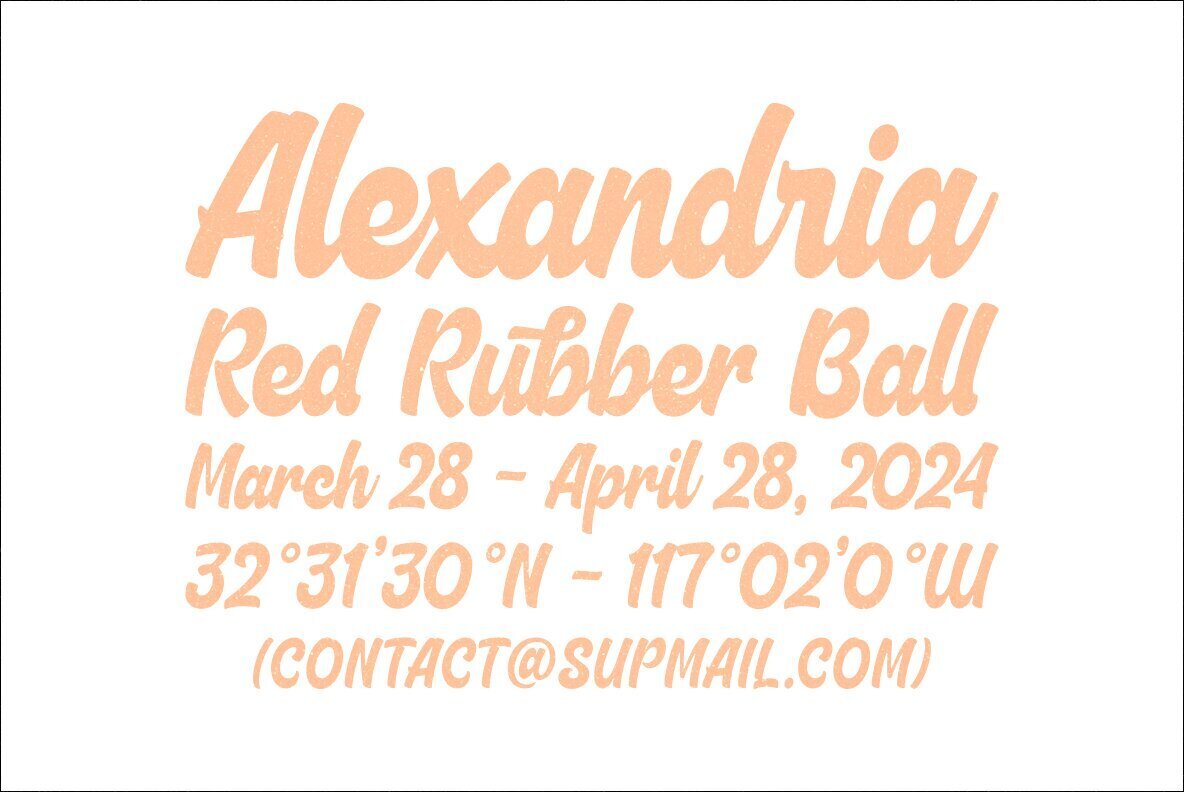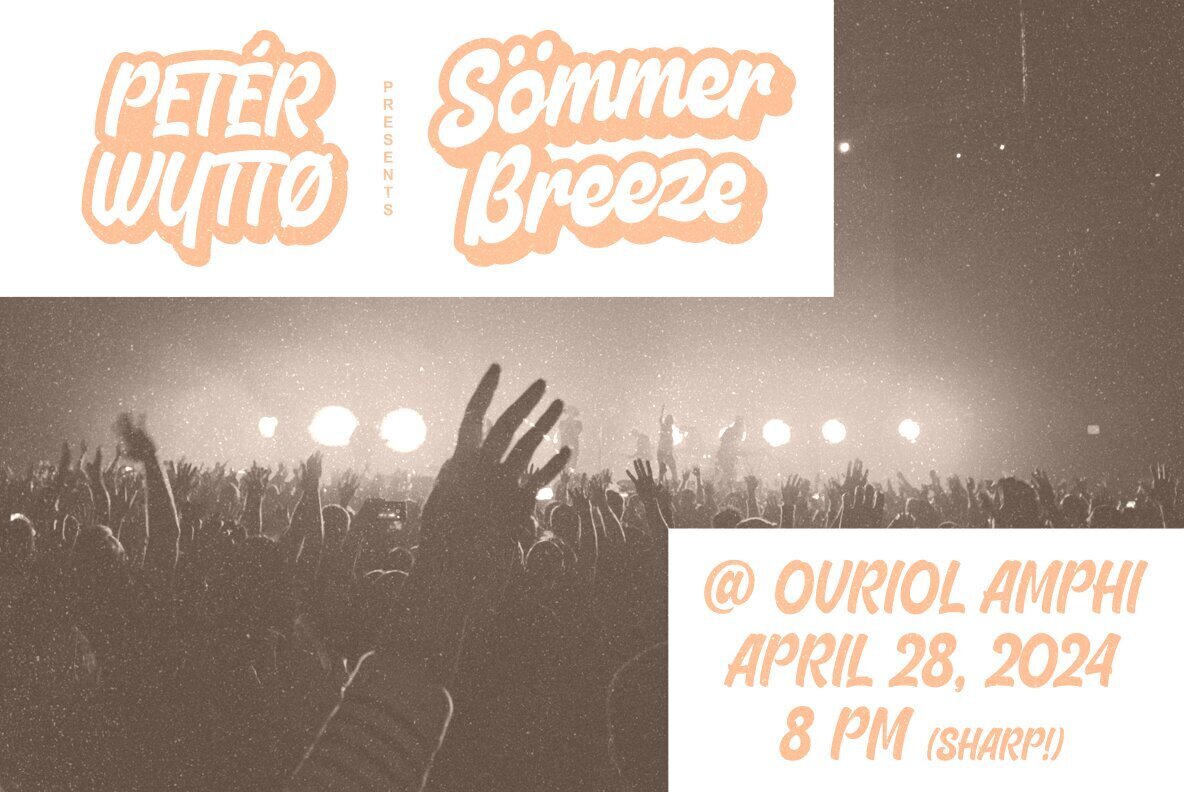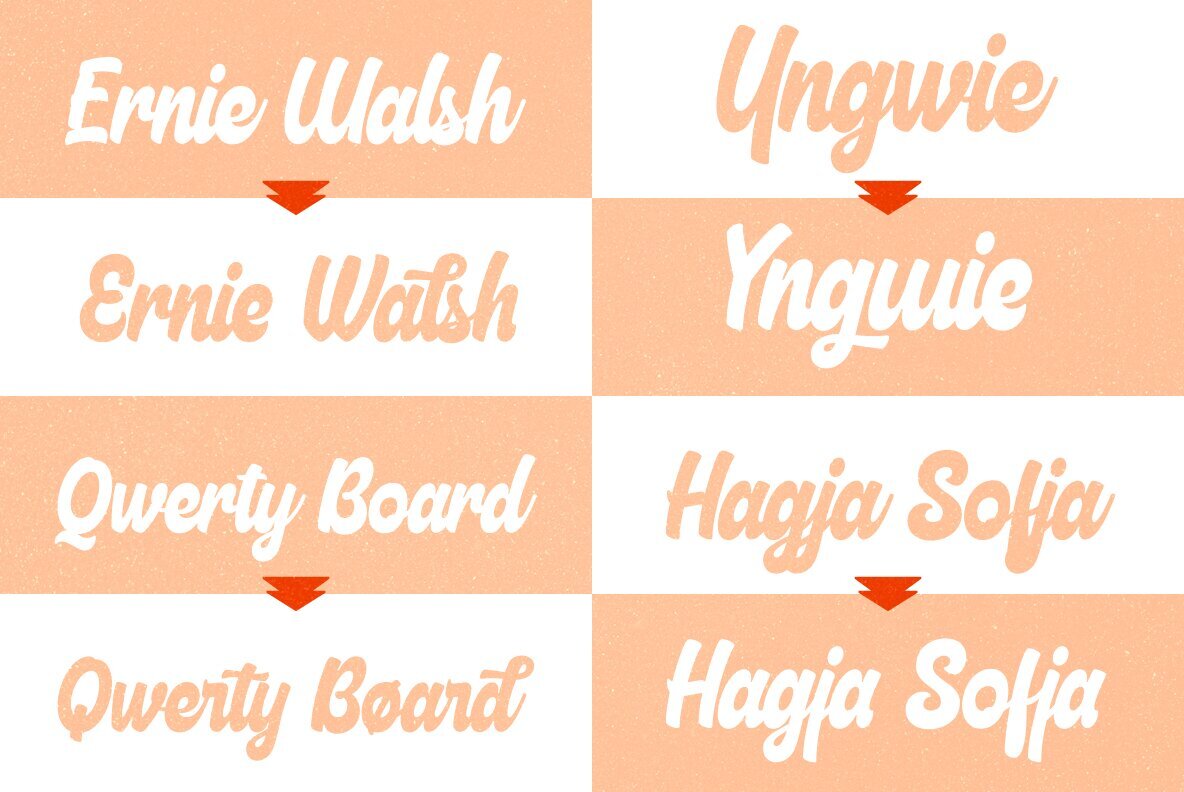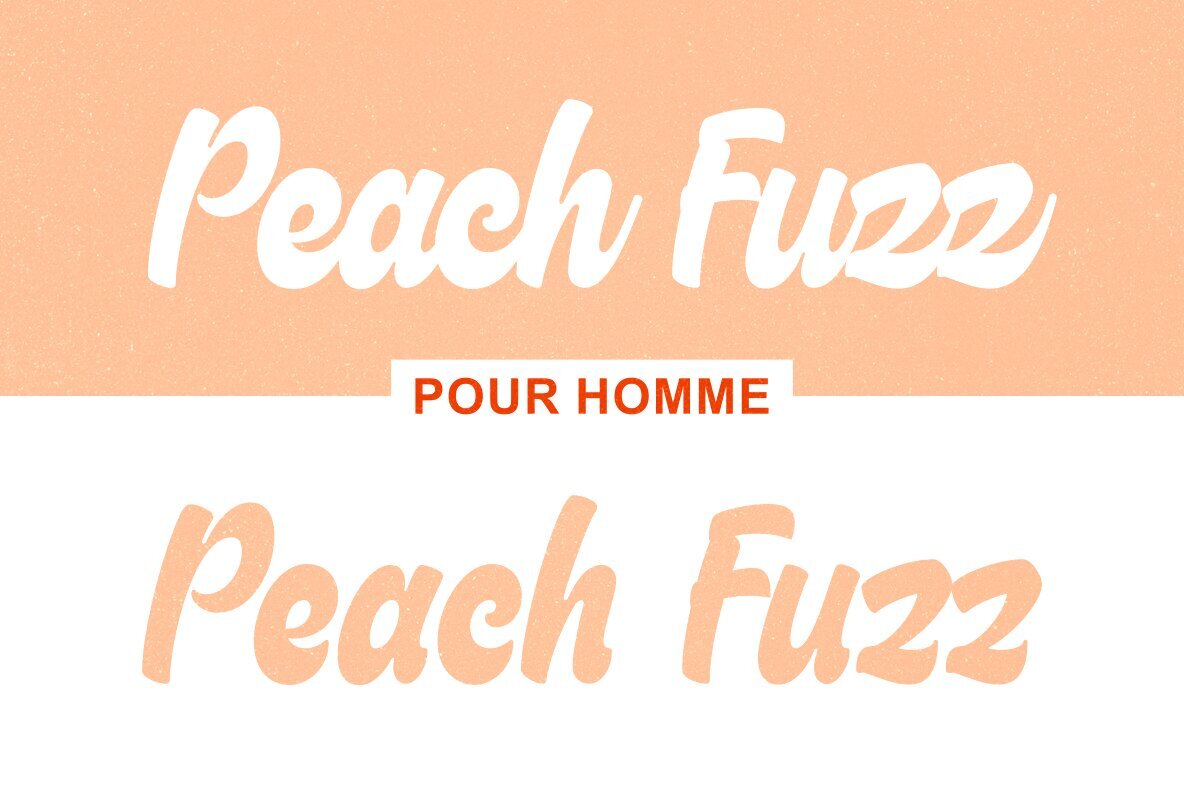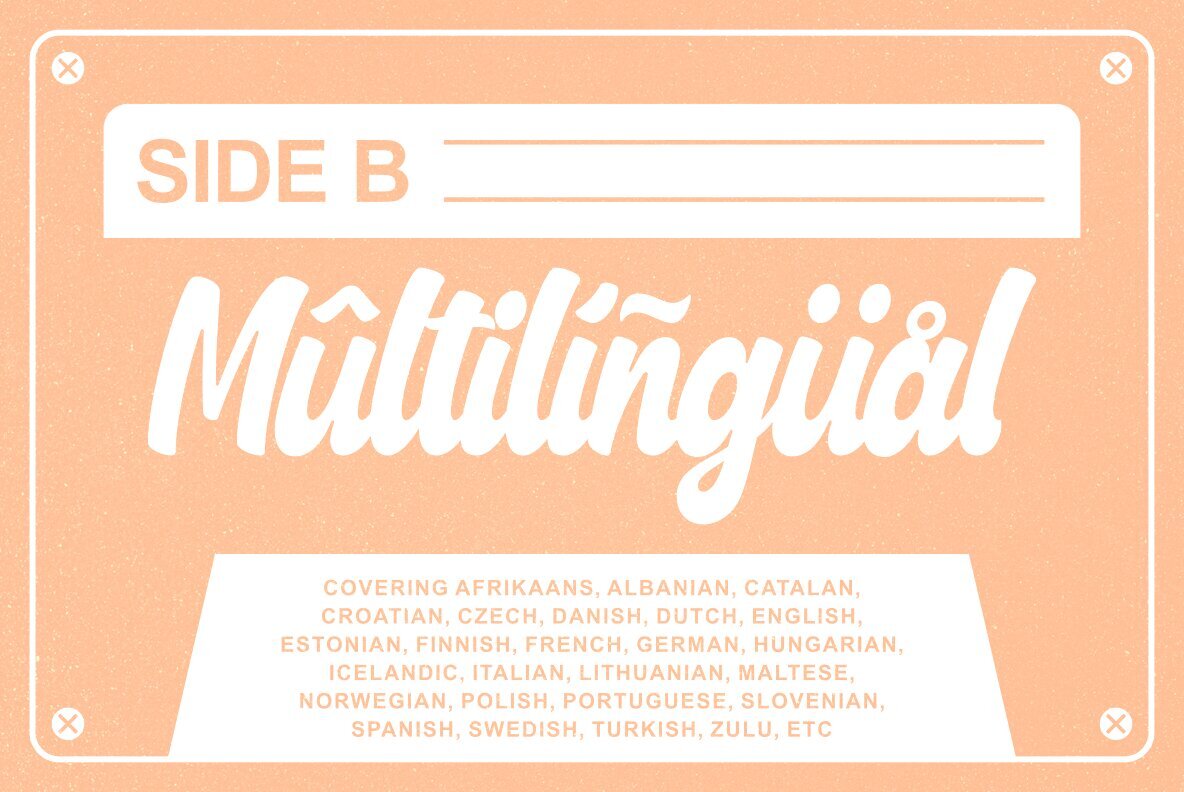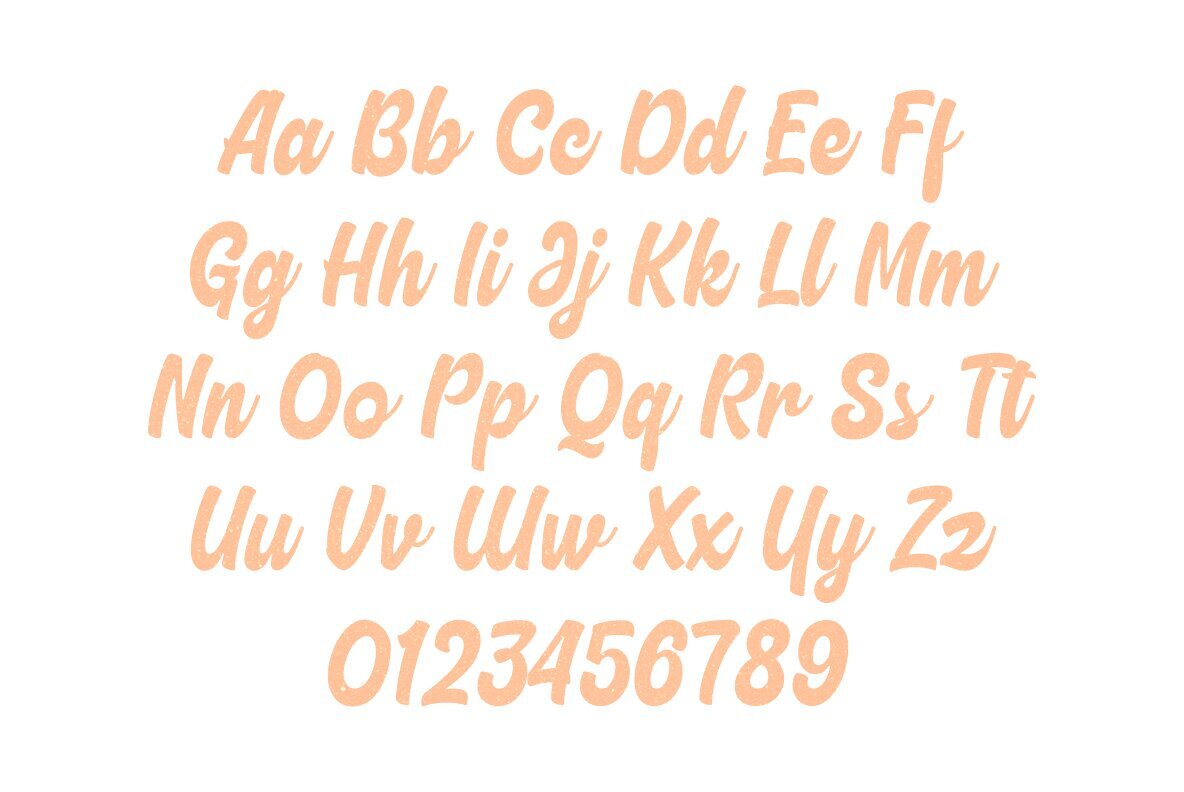
Riocht Font
Riocht Regular
Riocht Script combines a playful yet vintage essence, drawing inspiration from classic advertisement and product packaging signage. Designed with meticulous attention to detail, this font meets modern design standards while providing a versatile tail-less version for creative letter variations. Ideal for food and beverage packaging, logos, branding, quotes, posters, apparel designs, headlines, and social media content, Riocht Script amplifies your design voice.Riocht Script: Playful Vintage Font